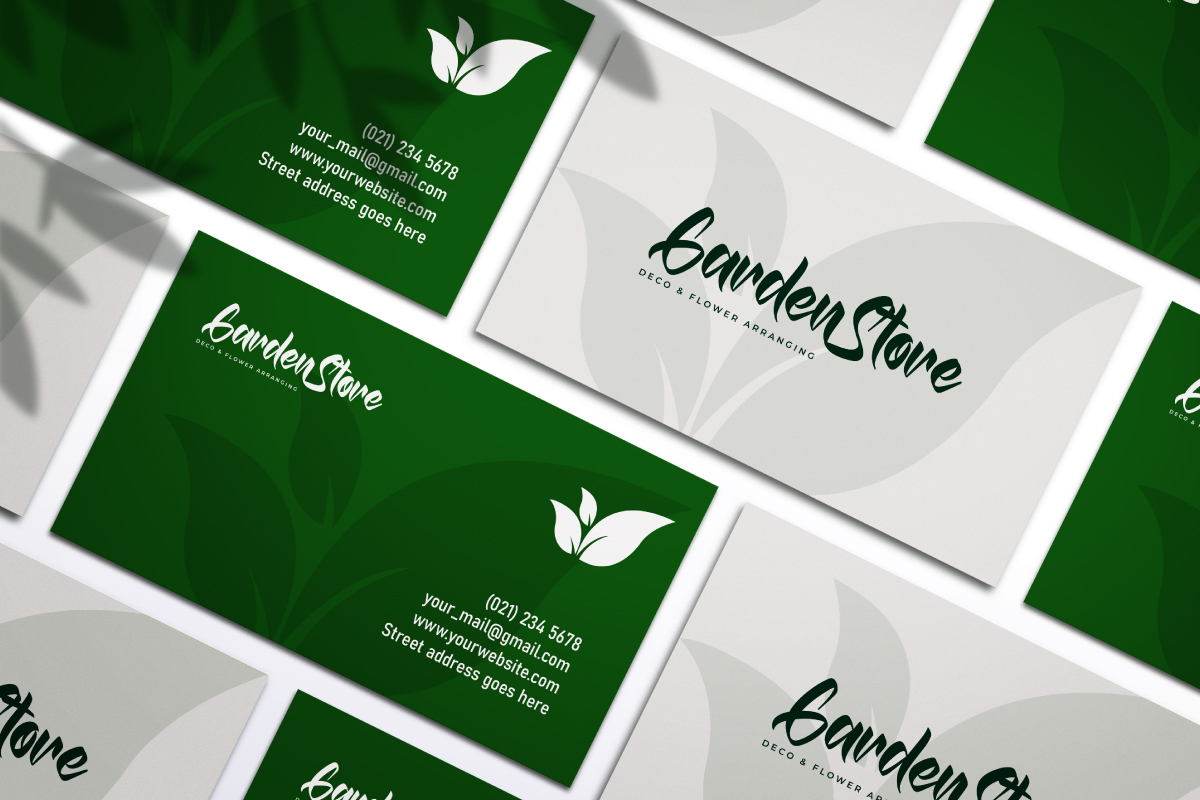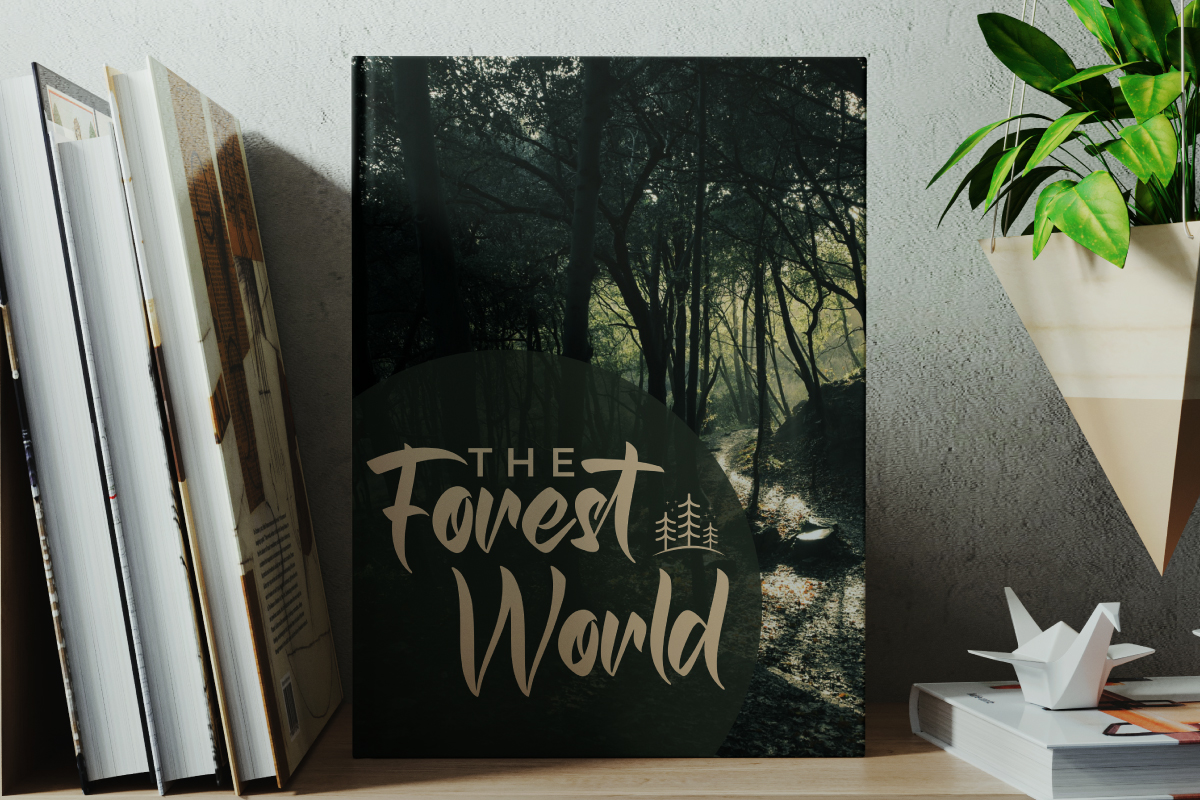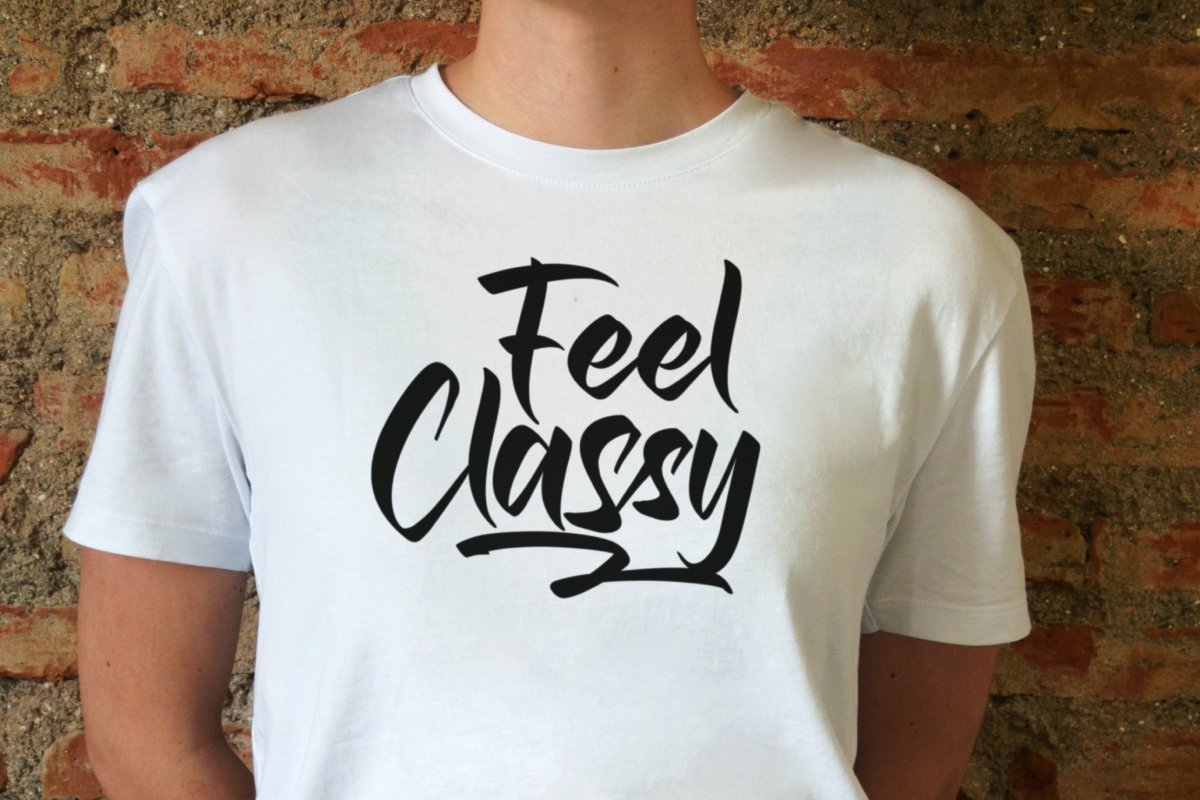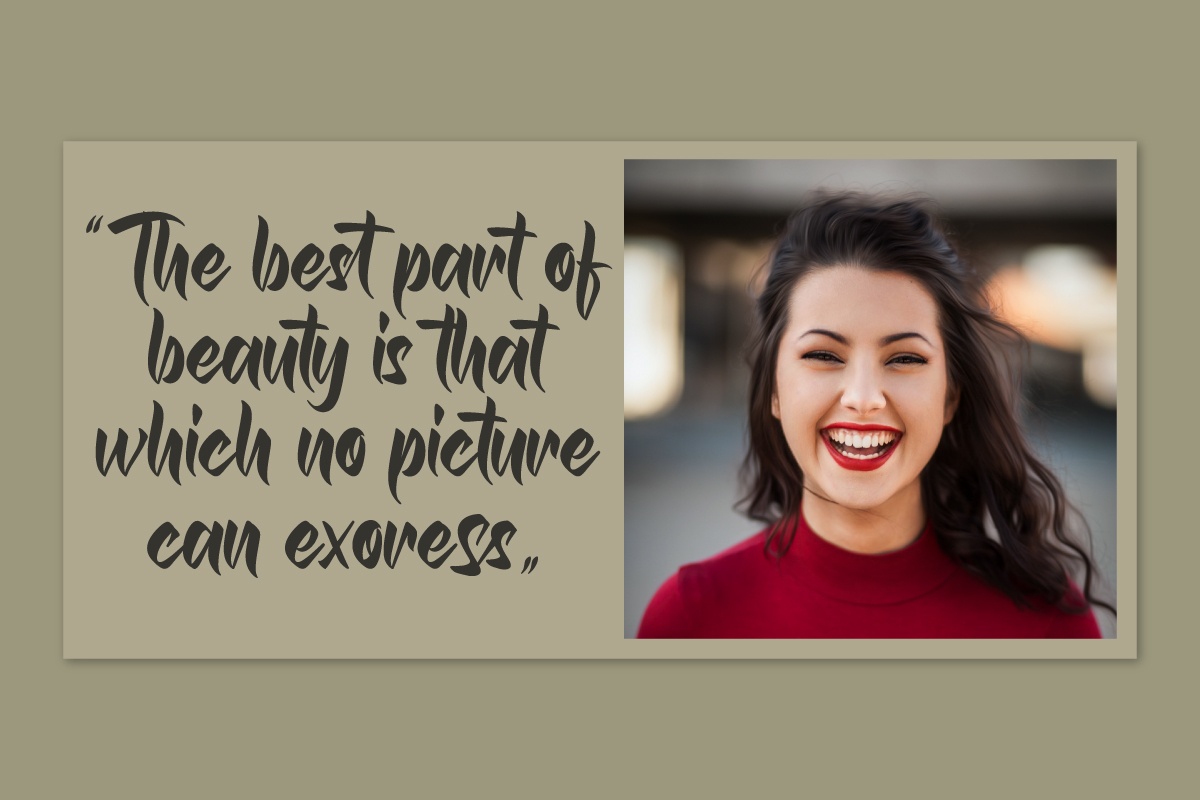
Bracknell Forest Font
Bracknell Forest Font is a signature brush font, great for professionals, products and other. The font has an elegant brush shape with unique, stylish and exclusive style. You can see the demo font below.
Bracknell Forest Font comes with elegant and stylish shape letters that are great for any projects for signature, professional, events, Movie, poster, Magazine, Music, Video, outdoor, etc. With extended license you can use it for any your special projects including : headlines, promotion, events, branding, advertising, magazine, signage, invitation, stationery, social media posts, label, or and any projects that need unique strong style. The theme/industries that great for this font is Real estate, professionals, florist, makeup, singer, dancer, School, kindergarten, Vintage, Horror, Movie, Game, Magazine, Music, Video, Sports, etc